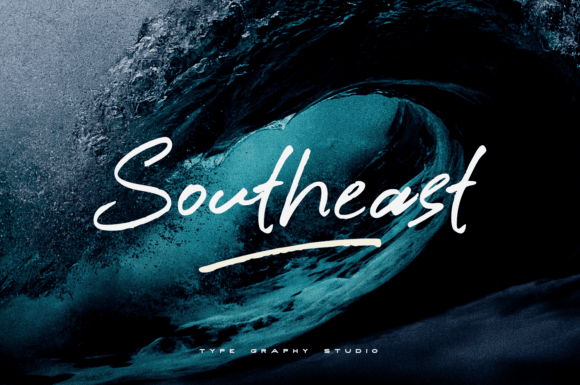
Southeast Font: The Ultimate Handwritten Font for Captivating Designs
Southeast Font is a modern handwritten script that exudes natural beauty, stylish flair, and an extraordinary handwritten feel. Its versatile style effortlessly elevates any project, from intimate wedding invitations to professional business cards.
**Why Choose Southeast Font?**
* **Unleash Your Creativity:** Let your imagination soar as you craft captivating designs with Southeast Font's unique and expressive strokes.
* **Effortless Elegance:** Create stunning designs that effortlessly convey sophistication and style, leaving a lasting impression.
* **Natural Handwritten Charm:** Embrace the beauty of handwritten aesthetics, adding a touch of warmth and personality to your work.
* **Versatile Applications:** Unleash Southeast Font's versatility across a wide range of projects, from personal cards to corporate branding.
* **Design with Purpose:** Elevate your designs with Southeast Font, meticulously crafted to enhance the impact of your messages.
* **Your Design Canvas Comes Alive:** Transform your designs into vibrant masterpieces, where every letter dances with character and emotion.
* **Make a Statement:** Express your unique style and leave an unforgettable mark with Southeast Font's distinctive handwritten charm.
Whether you're a creative professional, a design enthusiast, or simply seeking a touch of handwritten elegance, Southeast Font is the perfect choice. Experience the power of handwritten aesthetics and elevate your designs to new heights of beauty and impact.